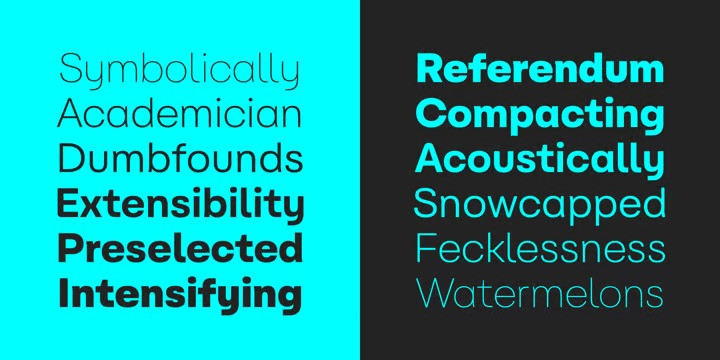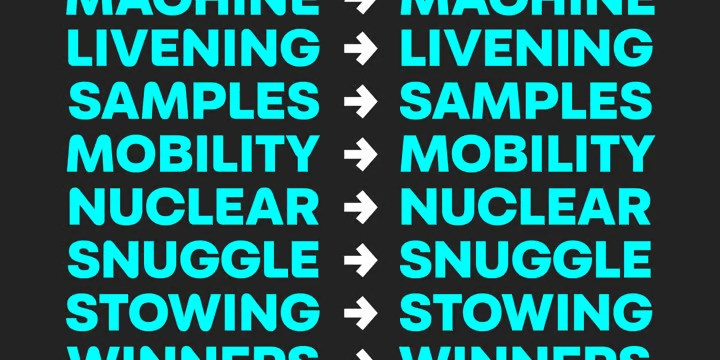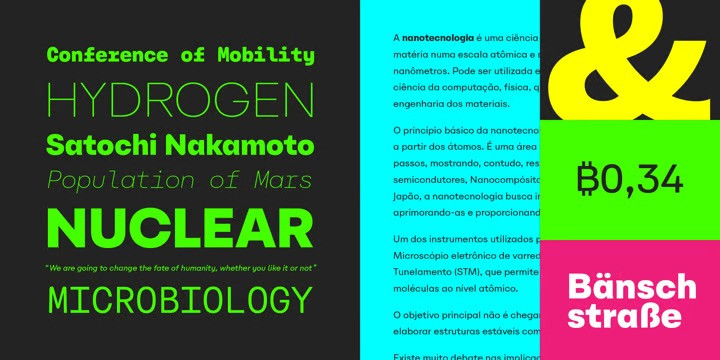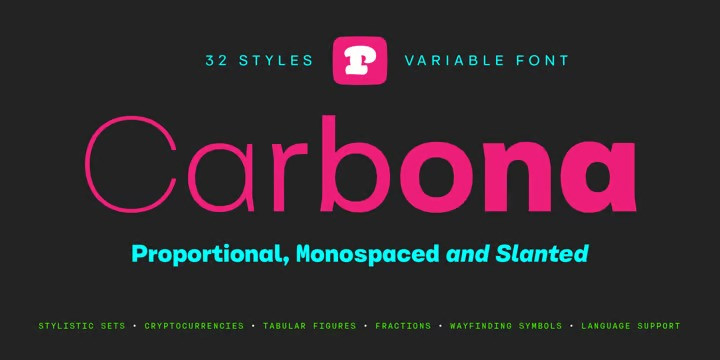
Carbona Font Family
Carbona Sans Serif Font is a sans-serif font family of 33 fonts, meticulously crafted with geometric shapes and inspired by modern sans-serif typefaces. Knowing that there will be a tomorrow is the stimulus we depend on to decide how we are going to act today. This idea is also one of the best fuels for creativity. That’s why we thought of Carbona as a typeface in sync with everything that appears on our technological future. From the countless births of new digital currencies to the sending of ultra complex algorithms at 5G speed, the future of any habit, choice or task that we will perform will transit through some super computer located somewhere very far away – who knows even on another planet. The family is designed to deal with the situations of the digital world, today and what is yet to come. It is optimized for programming, contains cryptocurrency symbols, advanced features for use in interfaces, and much more.